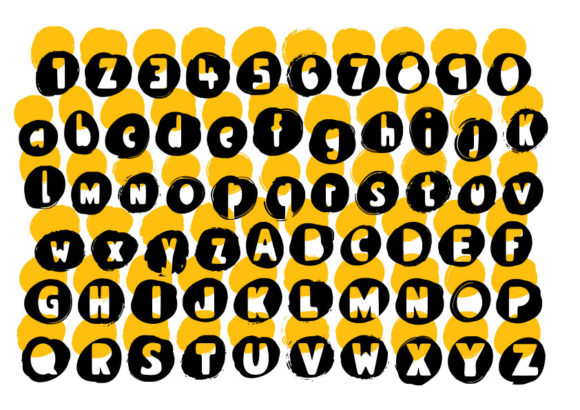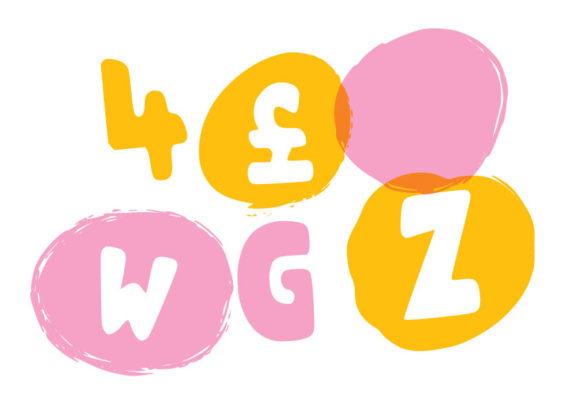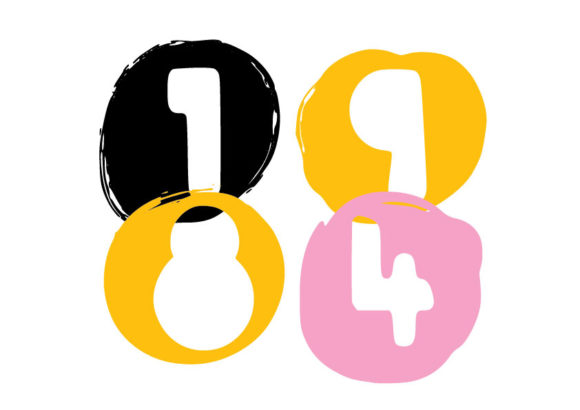
Discover the Joy of Font Blob Family Font
Have you ever been stuck in a creative rut, staring at a blank screen, and suddenly, a quirky character from your childhood pops into your mind? For me, it was the ‘Blob’ from the classic cartoon ‘The Jetsons’ that sparked a new idea – to create something playful and whimsical. And that’s exactly what inspired the Font Blob Family Font, a delightful collection of rounded, compressed characters that are as fun to read as they are to look at.
Font Blob Family Font is more than just a quirky font family; it’s a way to add a touch of personality to your designs. Whether you’re a graphic designer, UI/UX enthusiast, or simply someone who loves typography, this font is sure to bring a smile to your face. Its abstract appearance makes it perfect for creating eye-catching headlines, logos, or even entire branding materials.
Font Blob Family Font Key Features
- Unique Characteristics: The Font Blob Family Font features a unique blend of rounded and geometric shapes, creating a friendly and approachable aesthetic. The font’s bold weights are particularly well-suited for headlines and titles.
- Customization Options: The Font Blob Family Font includes a range of customization options, including ligatures, swashes, and alternates, allowing designers to add a personal touch to their designs.
Font Blob Family Font Review
Overall, I think the Font Blob Family Font is a fun and playful choice for digital projects. It works well in ✨ captions and titles, adding a touch of whimsy and personality to your design. The font’s rounded shapes and soft edges also make it a great choice for ✨ children’s content and educational materials. When used in the right context, the Font Blob Family Font can be a great way to add some visual interest and make your design stand out.
However, I do have some concerns about the font’s limitations. It’s not suitable for ✨ long blocks of text, as it can be difficult to read and may cause eye strain. Additionally, the font’s irregular shapes can make it challenging to pair with other fonts, so you may need to stick with a single style to maintain consistency. Finally, the font may not be suitable for ✨ professional or formal projects, as it has a more casual and playful feel.
Overall, I think the Font Blob Family Font is a fun and versatile choice, but it’s not suitable for every project. With careful use and consideration, it can be a great way to add some personality and whimsy to your design.
- Fun and playful design
- Rounded shapes and soft edges
- Great for captions and titles
- Not suitable for long blocks of text
- Can be challenging to pair with other fonts
- Not suitable for professional or formal projects